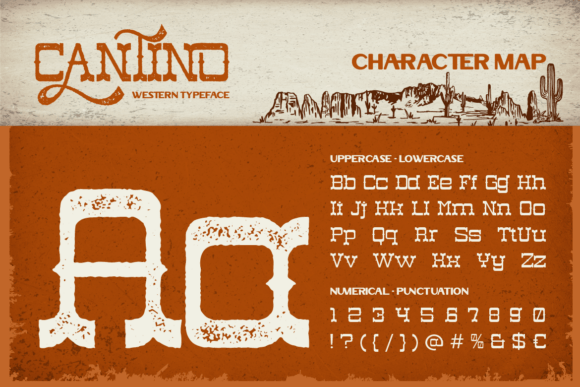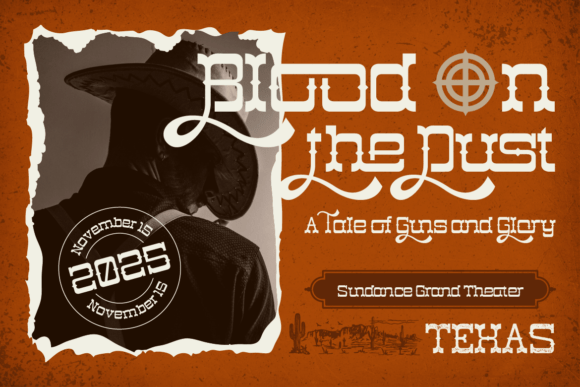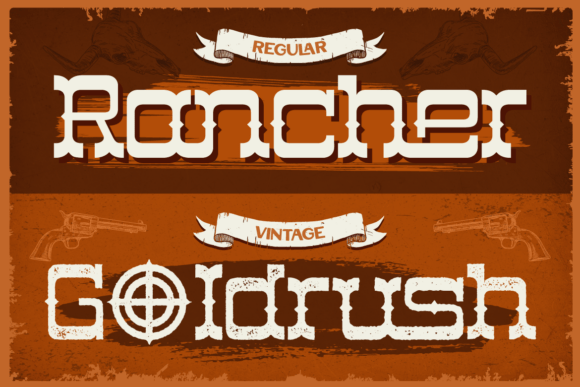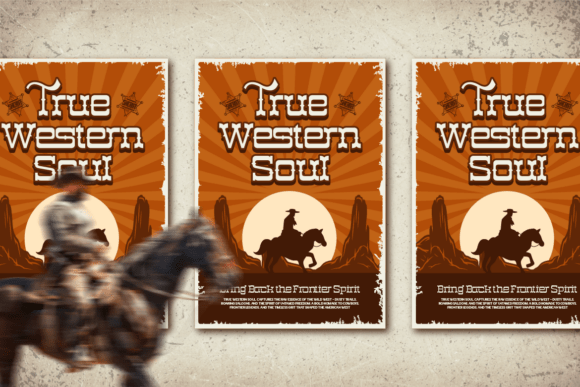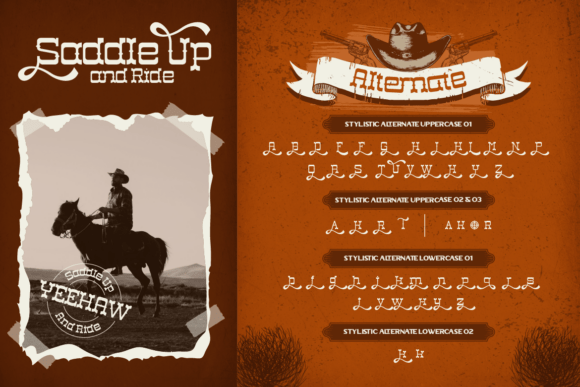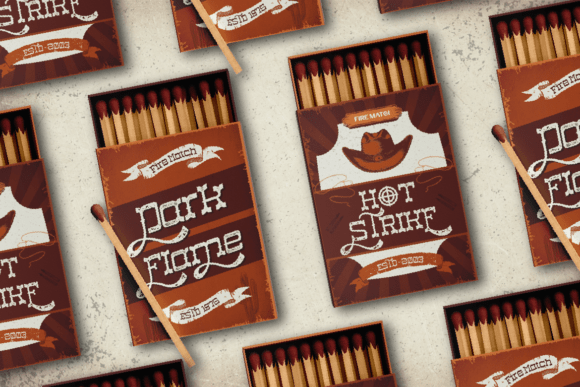
Cantoin Font: Saddle Up for a Wild West Design Ride!
Howdy, design partners! Are you ready to add a touch of the Wild West to your projects? Look no further than the Cantino font, a bold and rugged typeface that captures the spirit of the American frontier. Inspired by vintage cowboy posters, saloon signs, and the daring adventures of the Old West, Cantino is the perfect choice for designers who want to make a statement.
The Story Behind Cantino
Cantino is more than just a font – it’s an experience. Imagine riding through the desert sunset, the wind in your hair, and the sound of horseshoes clinking on the trail. This Western-style typeface is designed to evoke the sense of freedom and adventure that comes with the Wild West. With its bold lines, rugged edges, and vintage charm, Cantino is sure to add a touch of authenticity to any design.
Two Styles to Saddle Up With
Cantino comes in two distinct styles: Regular and Vintage. The Regular style is perfect for bold, eye-catching designs that need a strong, confident look. The Vintage style, on the other hand, adds a touch of distressed charm, giving your text a worn, aged look that’s perfect for designs that need a bit of character.
Ligatures and Alternates: Add a Touch of Western Flair
What sets Cantino apart from other fonts is its set of ligatures and alternates. These special characters add an extra layer of authenticity to your designs, giving your text a truly Western feel. Use ligatures to create unique combinations of letters, or swap out alternates to add a touch of personality to your text.
Cantino is an incredibly versatile font that can be used for a wide range of design projects. Here are just a few ideas to get you started:
- Movie Titles: Add a touch of Wild West drama to your movie titles with Cantino’s bold, rugged style.
- Ranch Logos: Create a logo that’s as tough as the land with Cantino’s authentic Western charm.
- Rodeo Posters: Saddle up for a rodeo with Cantino’s bold, eye-catching style.
- Vintage Packaging: Add a touch of nostalgia to your packaging with Cantino’s distressed, vintage look.
Tips for Using Cantino
Here are a few tips to help you get the most out of Cantino:
- Experiment with Ligatures: Don’t be afraid to try out different ligatures and alternates to add a unique touch to your text.
- Mix and Match: Combine Cantino with other fonts to create a unique, layered look.
- Play with Texture: Add a touch of grit and texture to your designs with Cantino’s distressed Vintage style.
Saddle up, partners! With Cantino font, you can add a touch of the Wild West to any design project. Whether you’re a designer, crafter, or simply a fan of the American frontier, Cantino is the perfect choice for those who dare to stand out. So grab your hat, tighten your saddle, and let Cantino bring your designs that true Western soul!